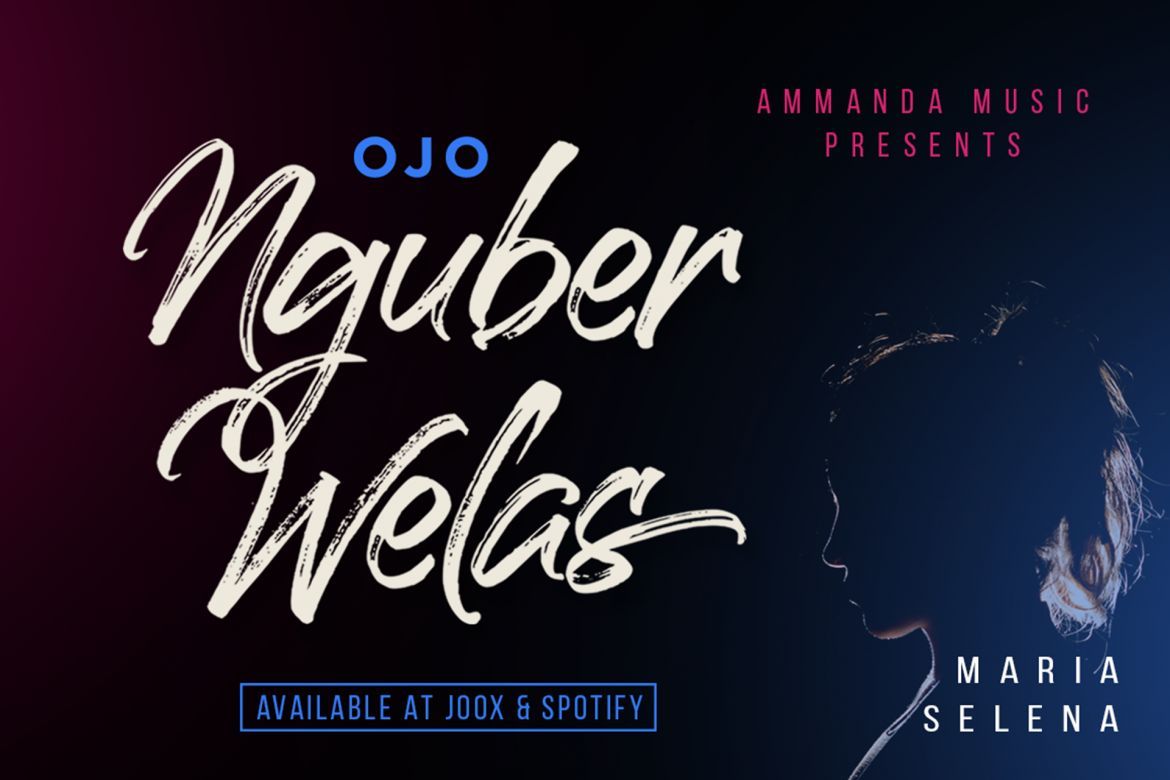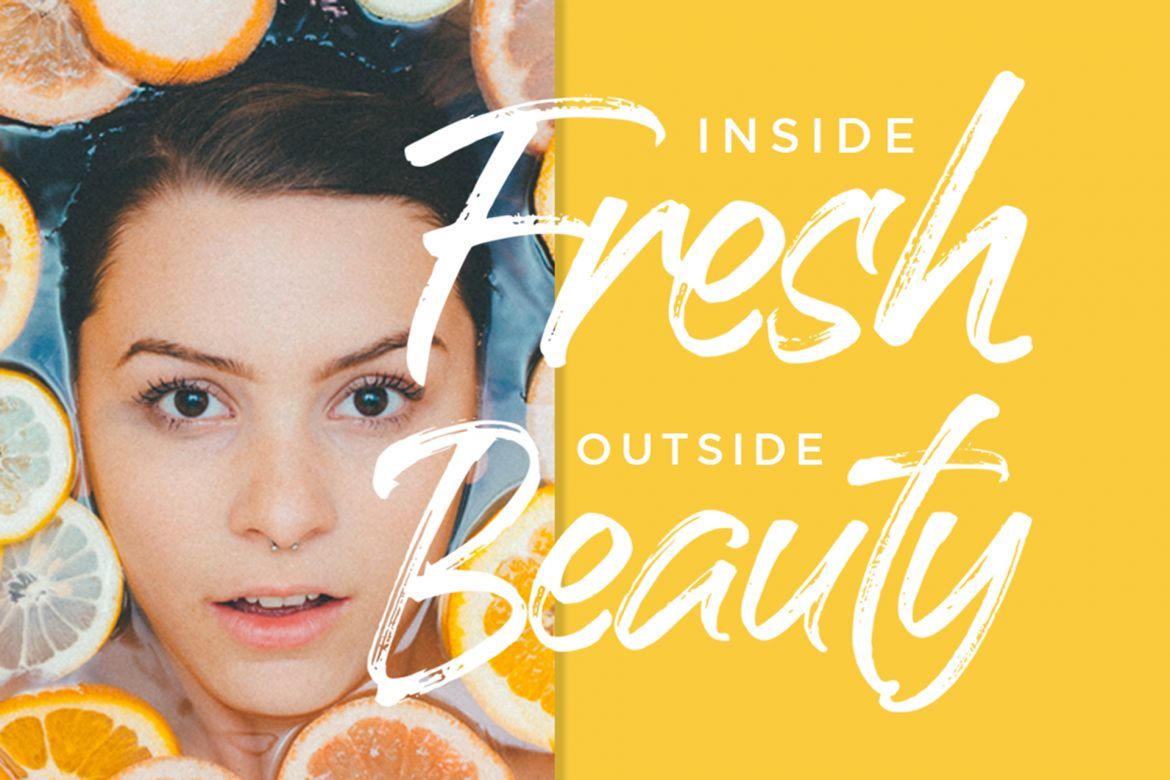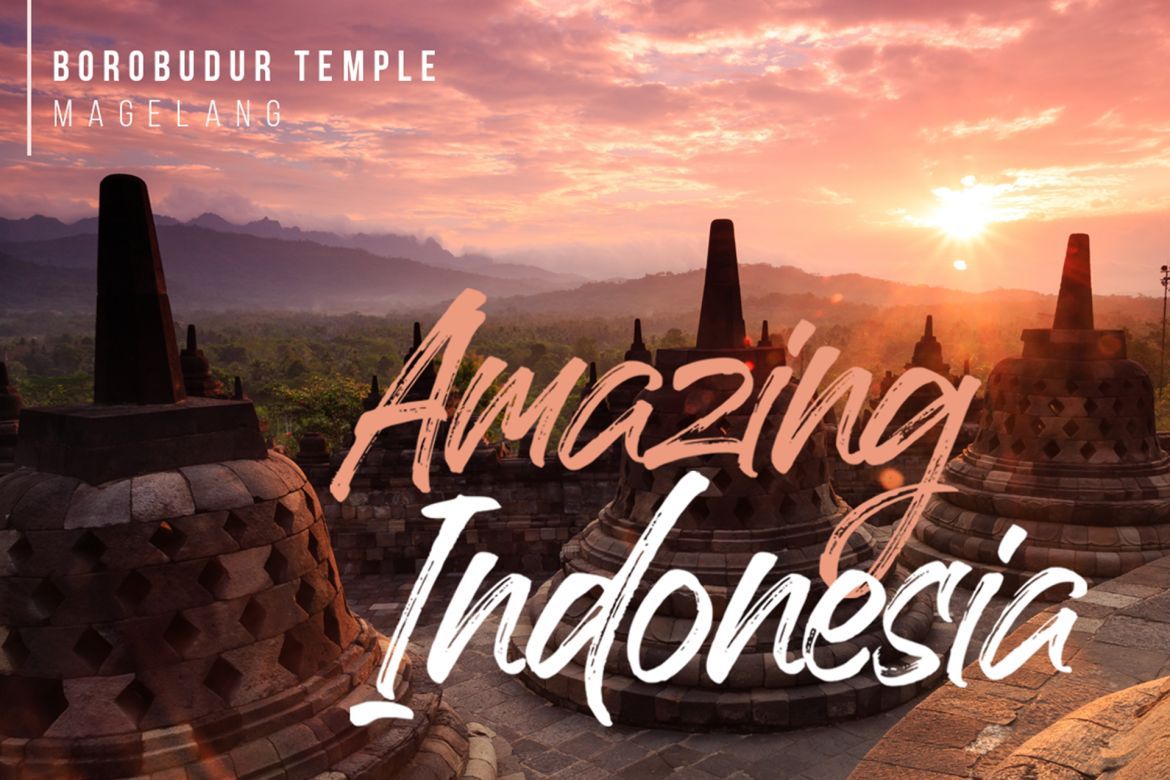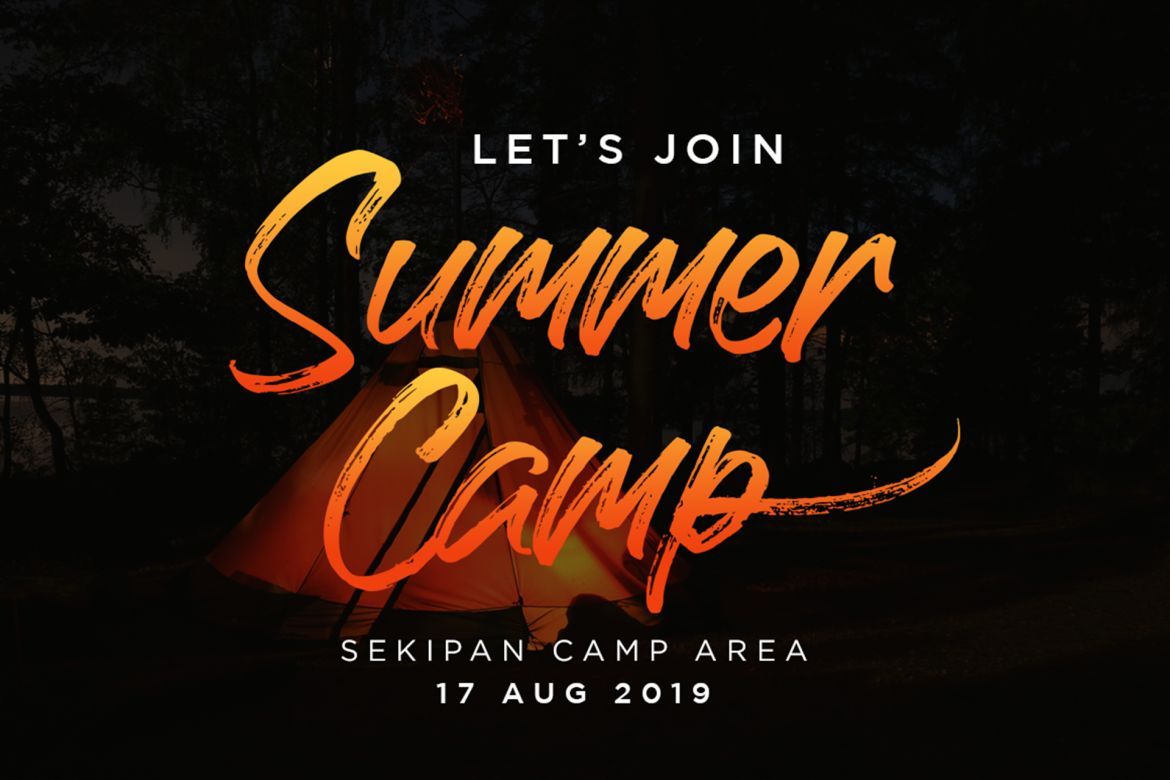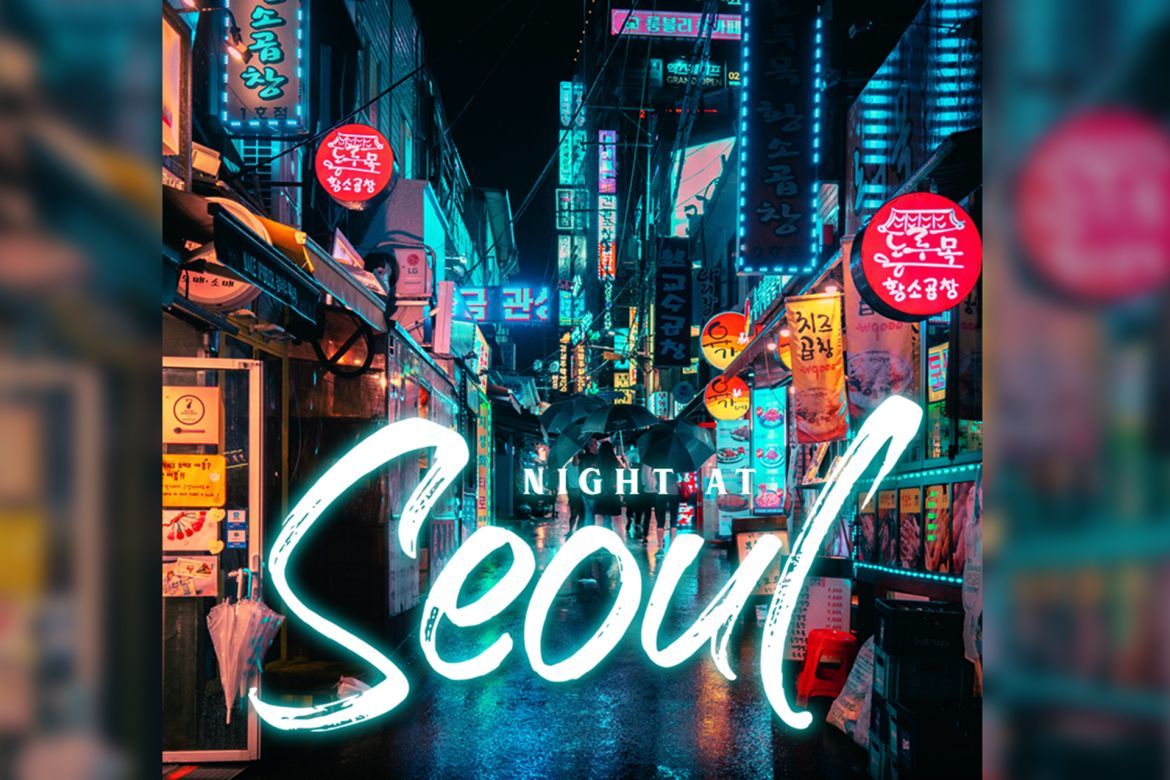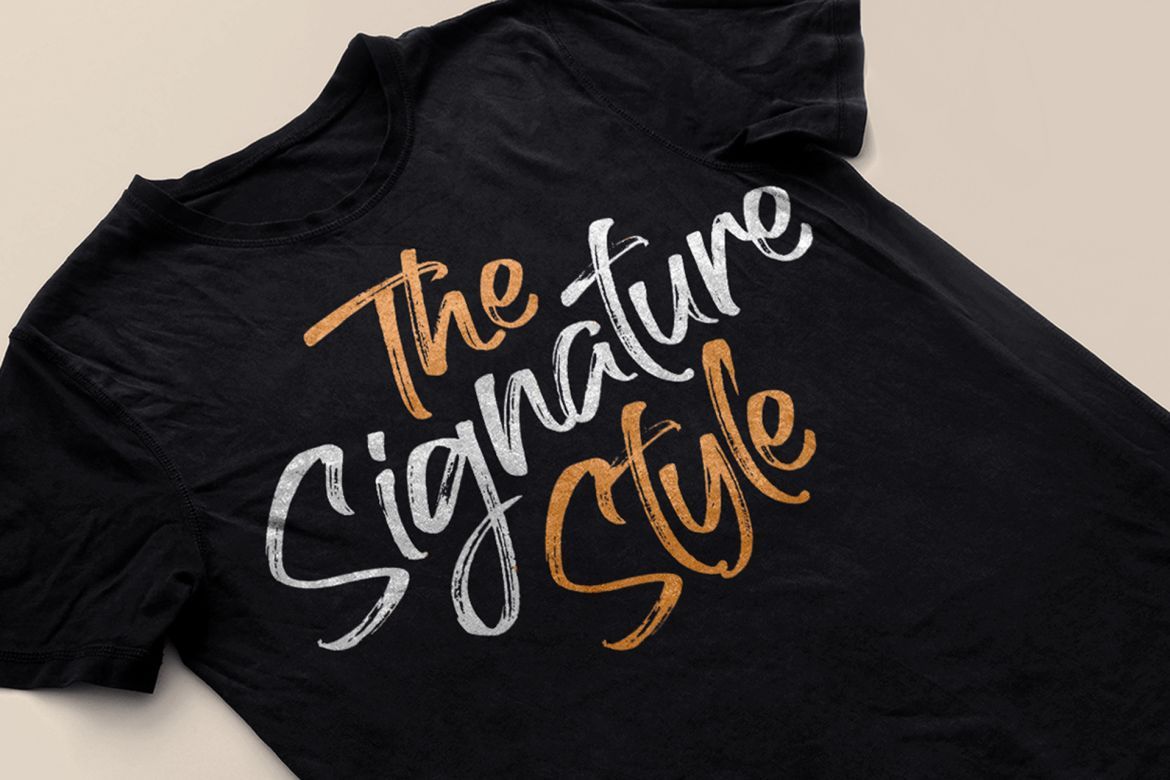
Handscript Brush Font
Handscript is handwritten brush font with amazing brush texture. This font is created manually using brush pen which make it has original and natural looks.